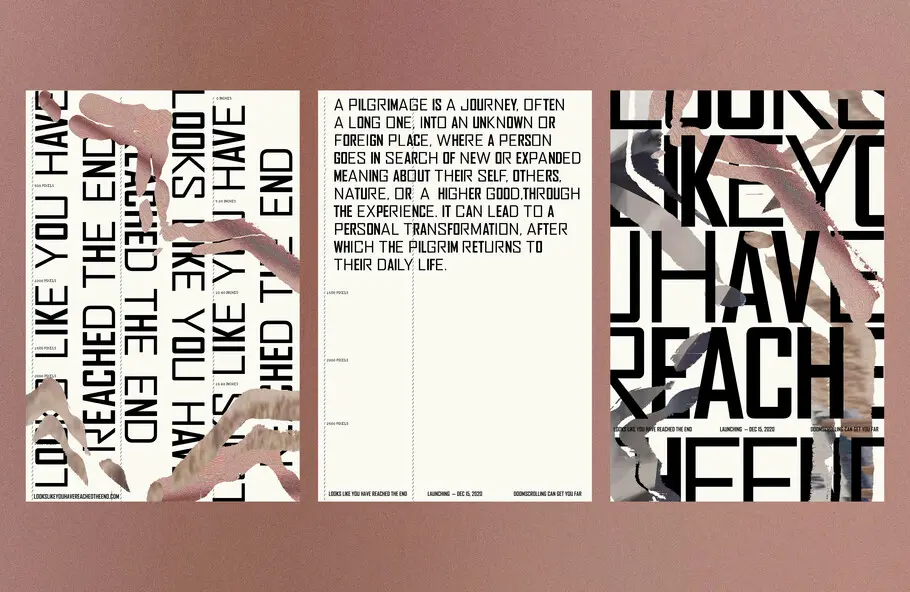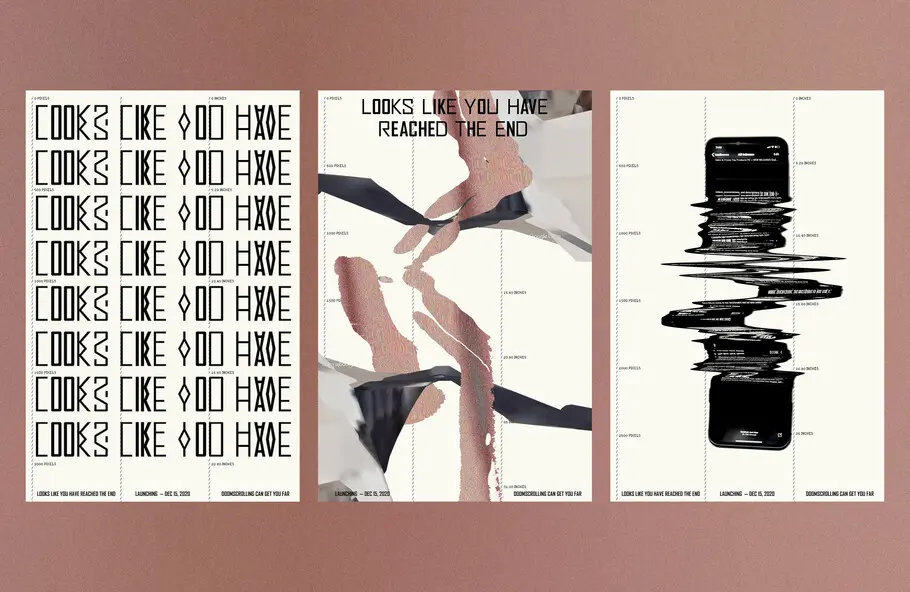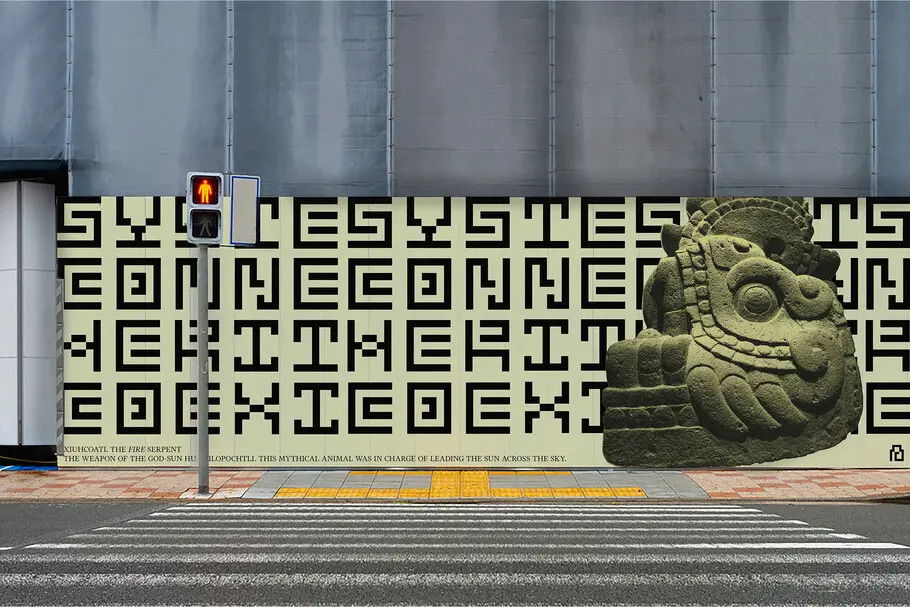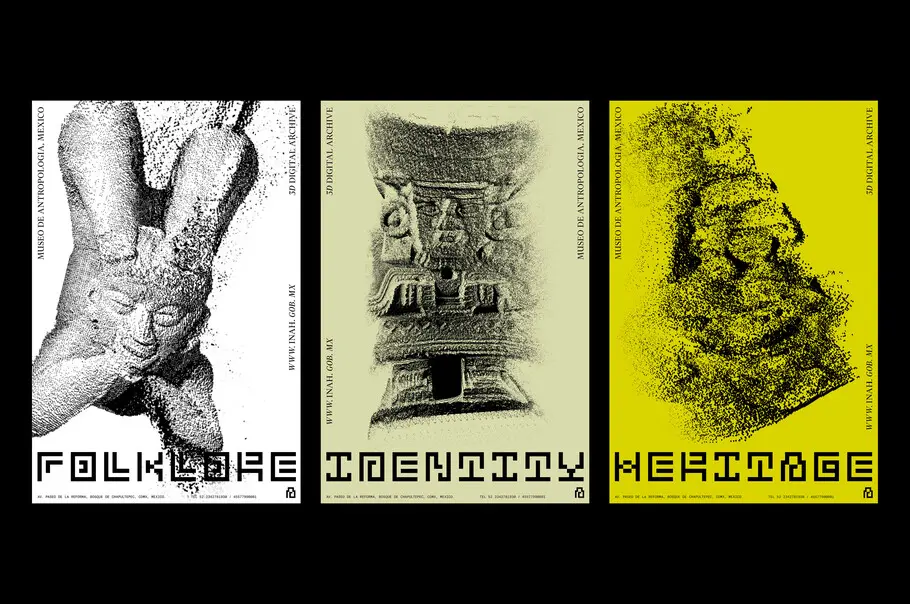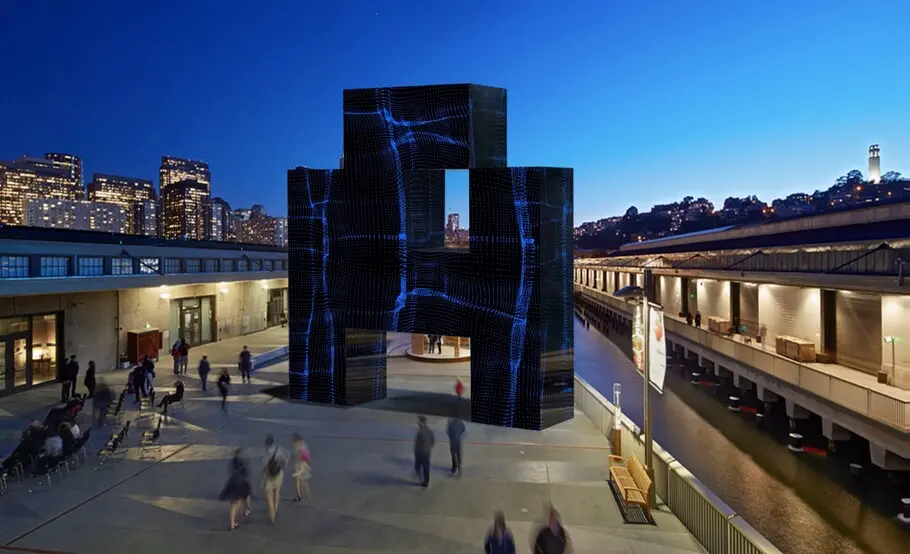
Meet the 2021 Beatrice Warde Scholarship recipient: Ximena Amaya.
Typography is such a complex articulation of the human need to express—a very raw, unconscious need. It tells us things before we get to the message, it helps us feel before we understand logically.
—Ximena Amaya.
Every year, Monotype and the Type Director’s Club (TDC) award the Beatrice Warde Scholarship to a young woman entering the design industry. This prestigious scholarship pays tribute to the first lady of typography,” Beatrice Warde, a champion of type education throughout her career with Monotype and the first female member of the TDC.
This year’s scholarship committee includes Gail Anderson, School of Visual Arts and Anderson Newton;  Ralitsa Debrah, Kwame Nkrumah University of Science and Technology (KNUST) in Ghana and Cape Peninsula University of Technology (CPUT) in South Africa; Deborah Gonet, Monotype; Shelley Gruendler, creator of TypeCamp (who wrote her Ph.D thesis on Beatrice Warde); Rathna Ramanathan, Royal College of Art; Fiona Ross, University of Reading educator and type designer; and Mariko Takagi, Academy of Visual Arts, Hong Kong Baptist University.
The 2021 Beatrice Warde scholarship went to Ximena Amaya, from the ArtCenter College of Design in Pasadena, California. Ximena follows past winners Tatiana Lopez (2020), Blossom Liu (2019), Anna Skoczeń (2018), Tasnima Tanzim (2017), Ania Wieluńska (2016), and Rebecca Bartola (2015).
Recently we caught up with Ximena, who is currently interning at Pentagram. Ximena talked about her own bold and sometimes rebellious design style, her passion for the feminist movement in her home country of Mexico, and how design can be used as a communication tool.
What made you decide to study design—were you always interested in creative pursuits?
Yes and no. I’ve always been interested in creating and imagining but it didn’t take the form of graphic design until later in life. Even then, it took me a second to figure out why I thought it was worth dedicating myself to it. It was a very intuitive process. Today, I would say I think design is a constant exploration of how we communicate with each other and how we learn from each other. We always need more of that.
How would you describe your design style?
In a visual sense, it tends to be bold and graphic, but more importantly there is a style in the process and thinking behind it. Perhaps the style is the attitude. I like to get as familiar as possible with the subject and experiment a lot before designing. If that is done in a way that is honest to the subject matter, then the aesthetic decisions come naturally, they unfold for you. Rather than imposing my style into everything I do, I like the aesthetic to be true to the subject.
How can we use design to be more inclusive? What do you think inclusivity means in branding?
This question is tricky but I would say that, as long as we deliberately seek to involve different voices in the process, we can be more inclusive. Design is about communication and that requires different points of view. Without those, we might as well be talking to a wall.
Can you share some of the real-world problems you’re particularly interested in tackling with design?
I would love to involve design in the feminist movement in Mexico, where I am originally from. Every year I am in awe of the protests on March 8th, International Women’s Day. I feel very proud of the people that are showing up, chanting, creating posters, signs, even graffitiing the streets. It is so visual and loud and I’m interested in the impact that design tools have in such spaces.
What role do you think type can play in these kinds of projects?
As I mentioned before, I think design is all about how we talk to each other. Typography, especially, is such a complex articulation of the human need to express—a very raw, unconscious need. It tells us things before we get to the message, it helps us feel before we understand logically. It’s like that phrase, “It’s not what you said, it’s how you said it,” and that can be more important than the message itself.
What types of projects are you working on at Pentagram?
At Pentagram, I have been involved in a wide range of different projects. Natasha Jen, a partner at Pentagram, that I’m interning for, focuses on technology as well as cultural projects so recently I have been learning a lot about cryptocurrencies and exhibition design.
What do you think made you stand out as a winner for the scholarship?
There is a lot of effort that goes into the work, a lot of voices that have helped me shape my projects, and a bit of a rebellious energy of my own. I hope that was reflected in the work and resonated with the judges. Although I read the interview with last year’s winner , Tatiana López, and I couldn’t agree more with her answer, “All the experiments and personal projects I created over time—they worked,” said Tatiana, “The scholarship committee saw something in my work. Maybe not how good it was, but its potential. So that is what it means to me. I didn’t always believe in myself. Winning a scholarship is an invitation to do that.”
Do you have any dream projects you’d love to take on, if there were no limits?
I have no idea what that would be. I feel quite thankful every time a project makes its way to me so it’s hard to imagine something so big that it has no limits. It also makes me think of something Natasha Jen said recently in the office: ”limits let you be more aggressive (graphically)”. I guess that’s the long way of saying I really like limitations and small projects.